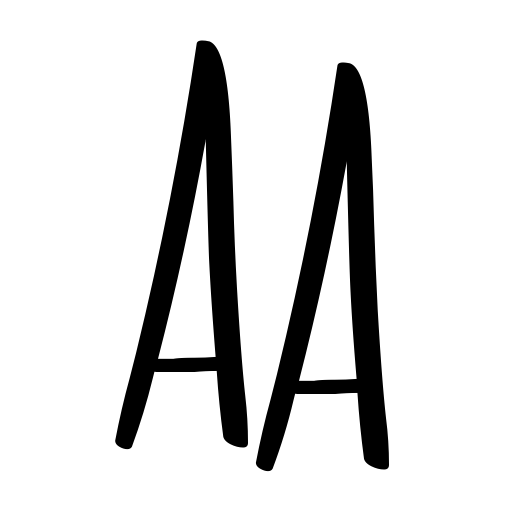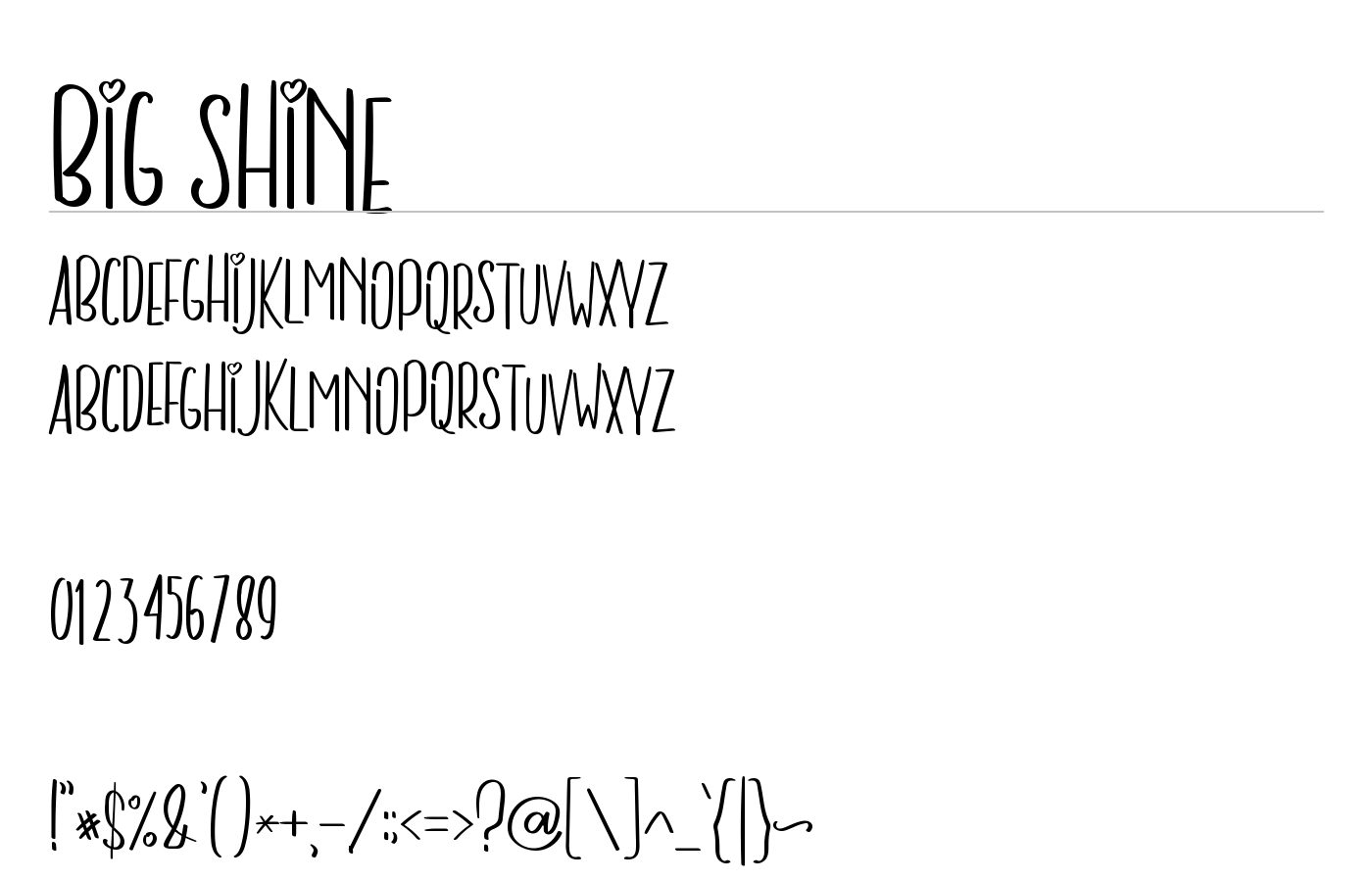
BIG SHINE is a playful and whimsical sans serif font with tall, narrow letterforms and a hand-drawn feel. Its thin strokes, quirky details like the heart-shaped dots on the i’s, and a casual, uneven baseline give it a charming, friendly personality perfect for fun, creative projects. This font works well for invitations, children’s designs, or any use where a lighthearted and unique touch is desired.
BIG SHINE Font
About BIG SHINE Font
| Font family | BIG SHINE Font |
| Designer | AMIN MARYONO 2020 |